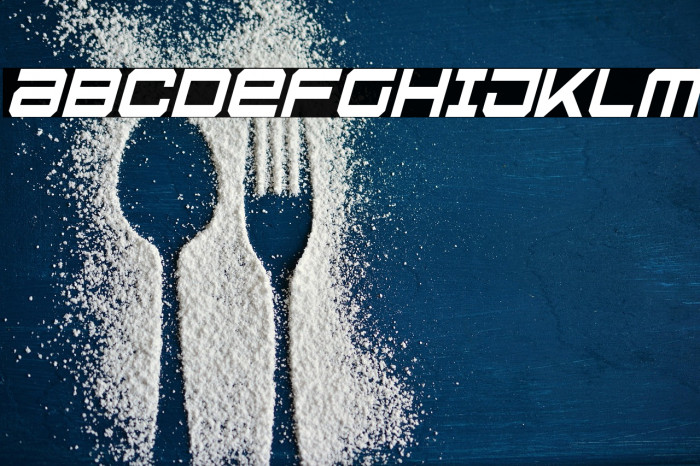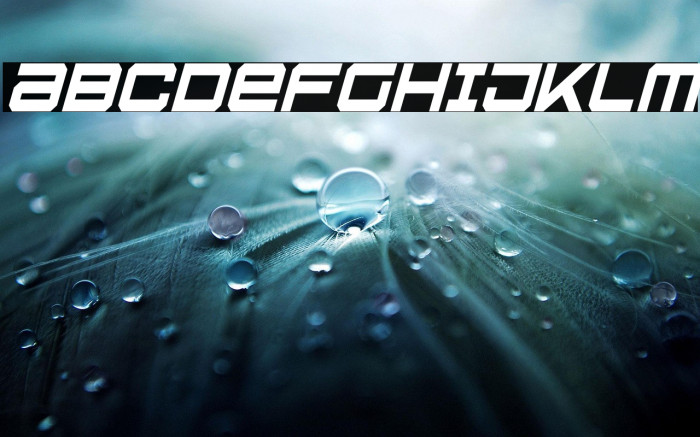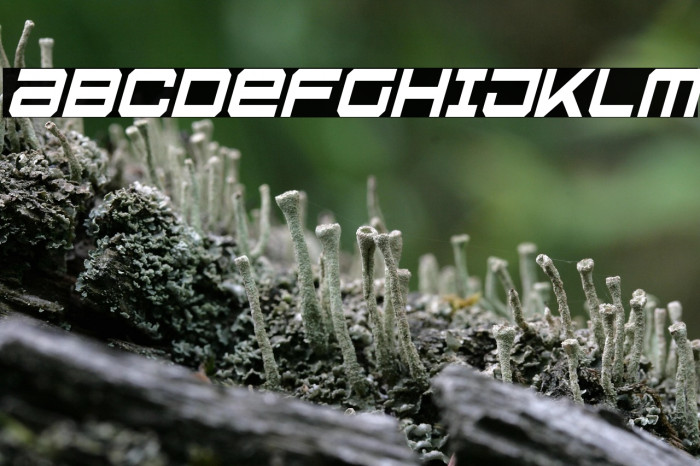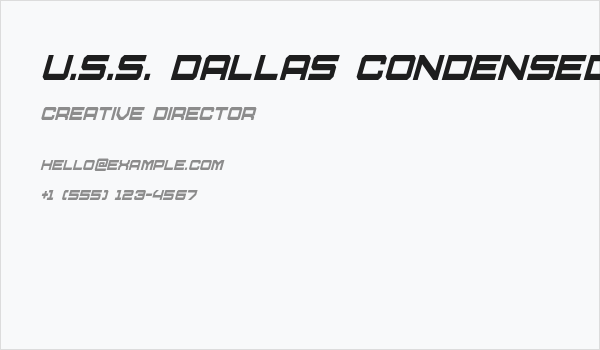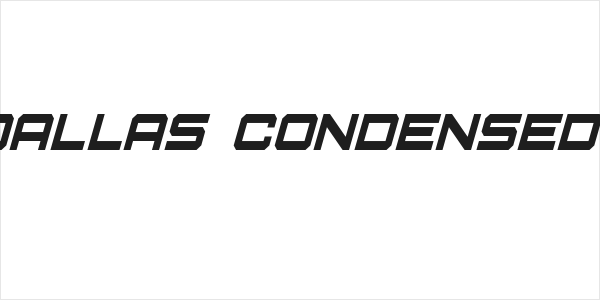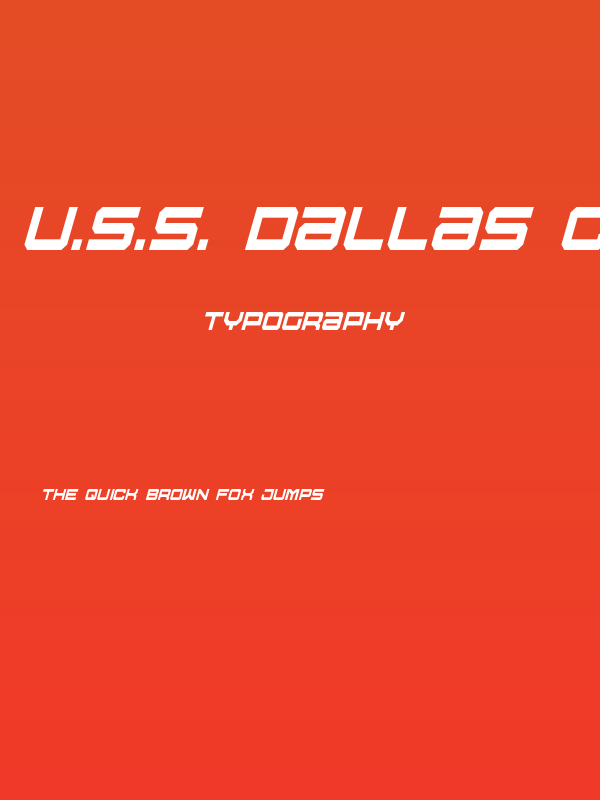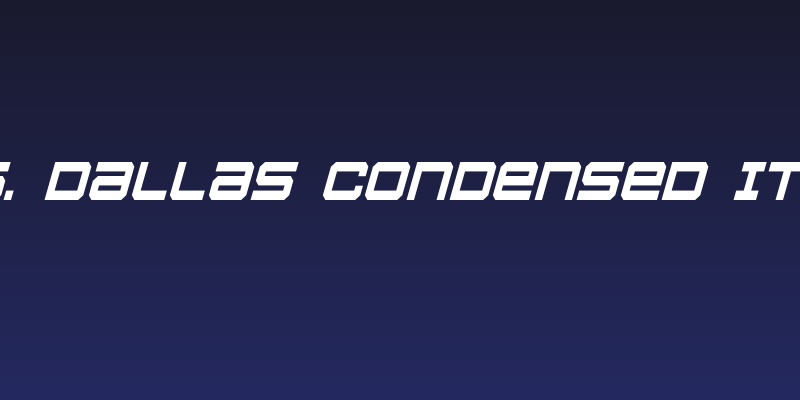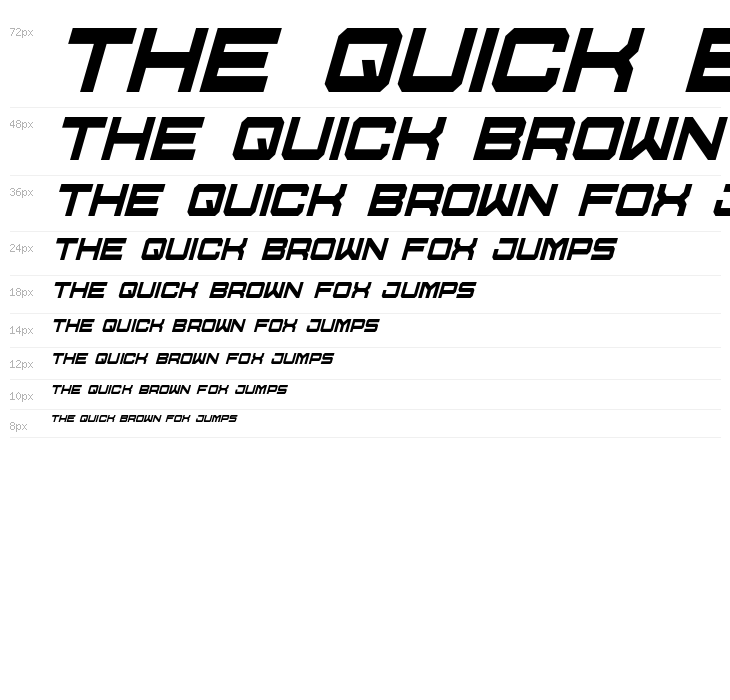
U.S.S. Dallas Condensed Italic Font
U.S.S. Dallas Condensed Italic Description
This font features a bold, condensed style with a distinct italic slant, giving it a dynamic and forward-moving appearance. The characters are angular and geometric, with sharp edges and a futuristic feel. The uppercase and lowercase letters maintain a consistent height, contributing to a uniform look across text. Numbers and special characters are designed with the same angular style, ensuring cohesion throughout. The font's condensed nature allows for efficient use of space, making it suitable for headlines and impactful text displays.
| Proposed Projects | Ideal for sci-fi themed projects, technology branding, video game titles, and dynamic posters. |